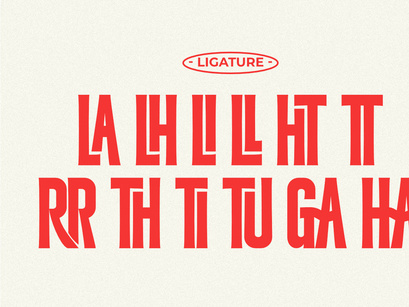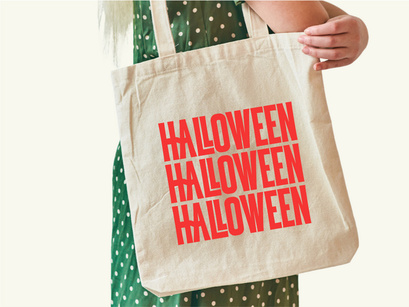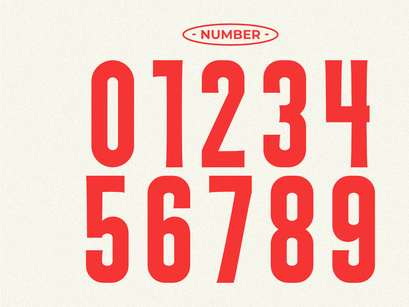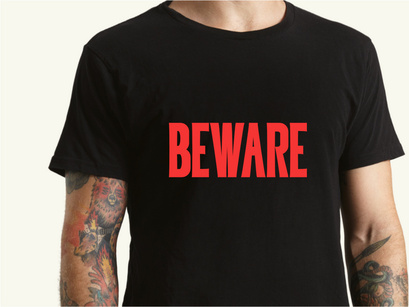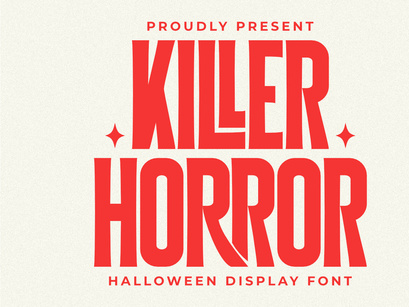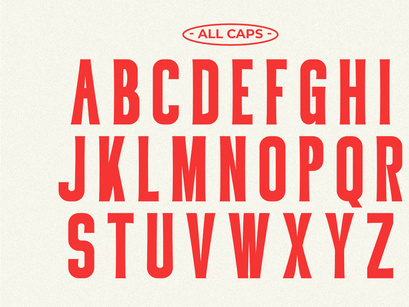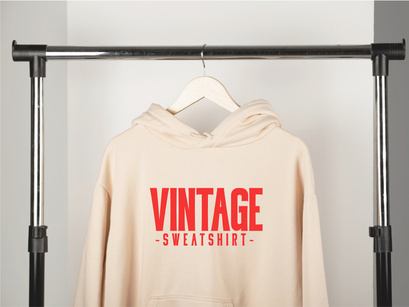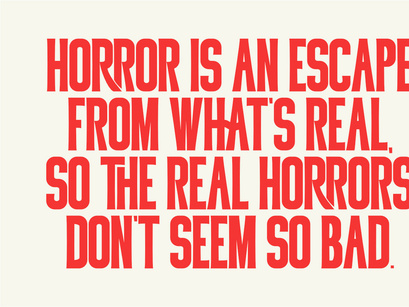
Killer Horror is a bold condensed display font with a Halloween theme. This versatile and impactful font features sharp, angular serifs and a slightly distorted look. Its strong visual presence is perfect for creating a sense of dread and excitement. It is ideal for T-shirt designs, posters, branding, and Halloween decorations.